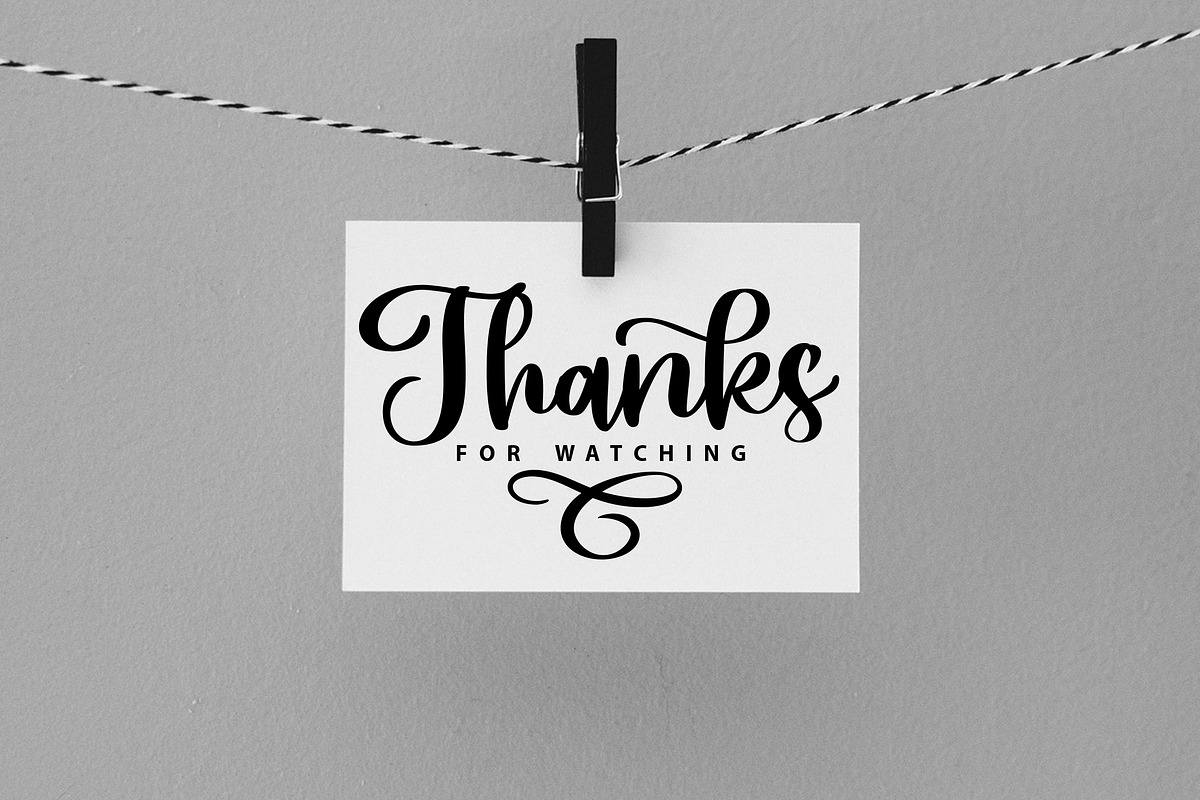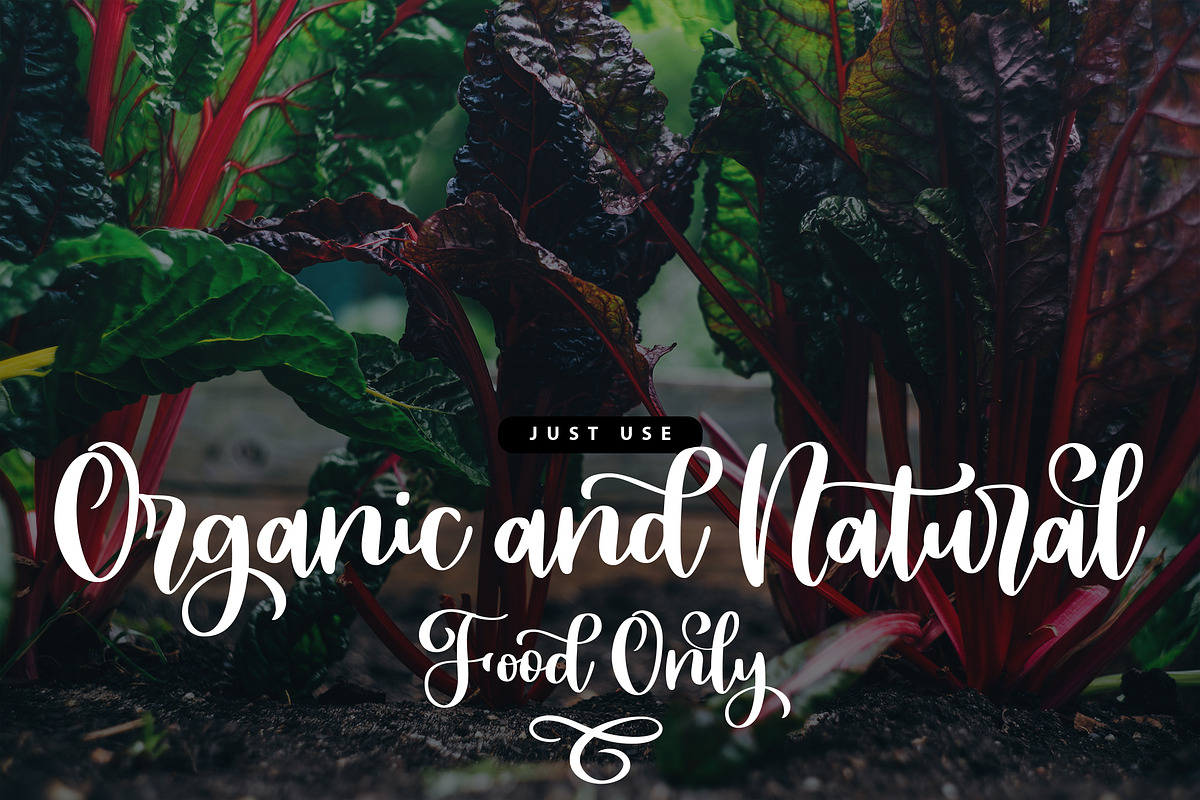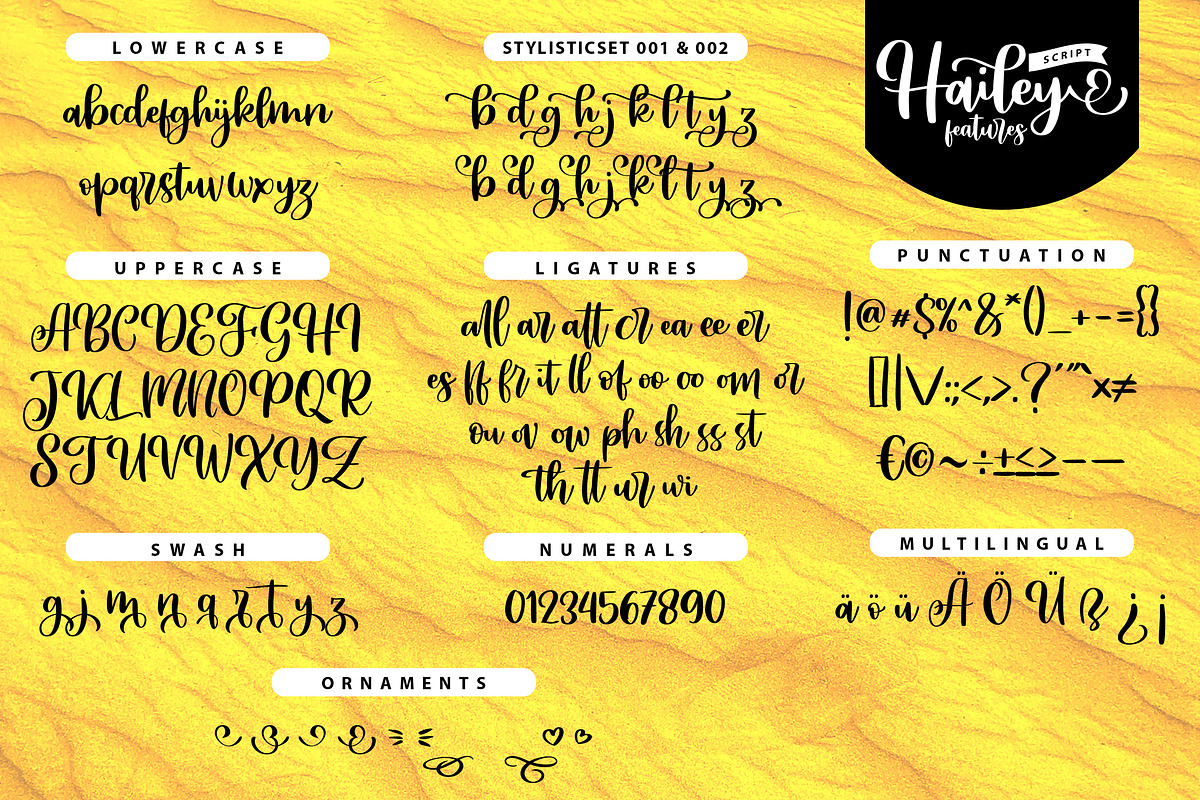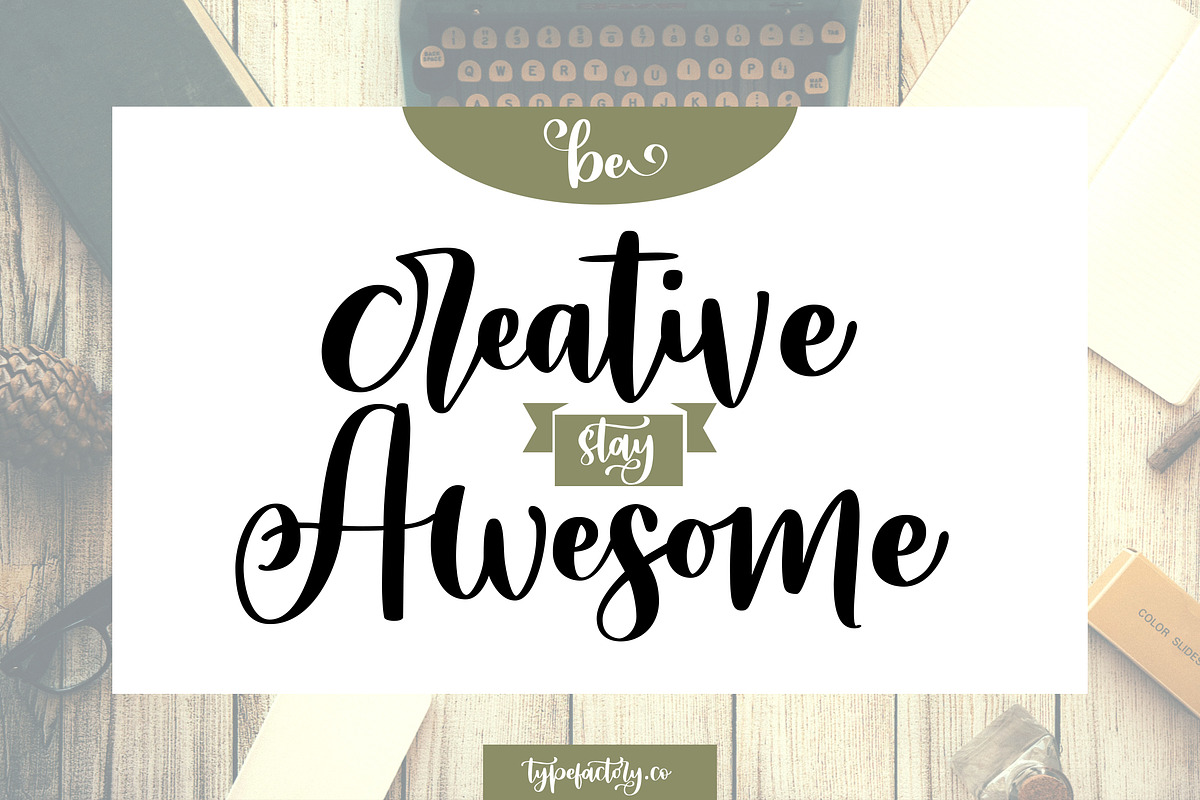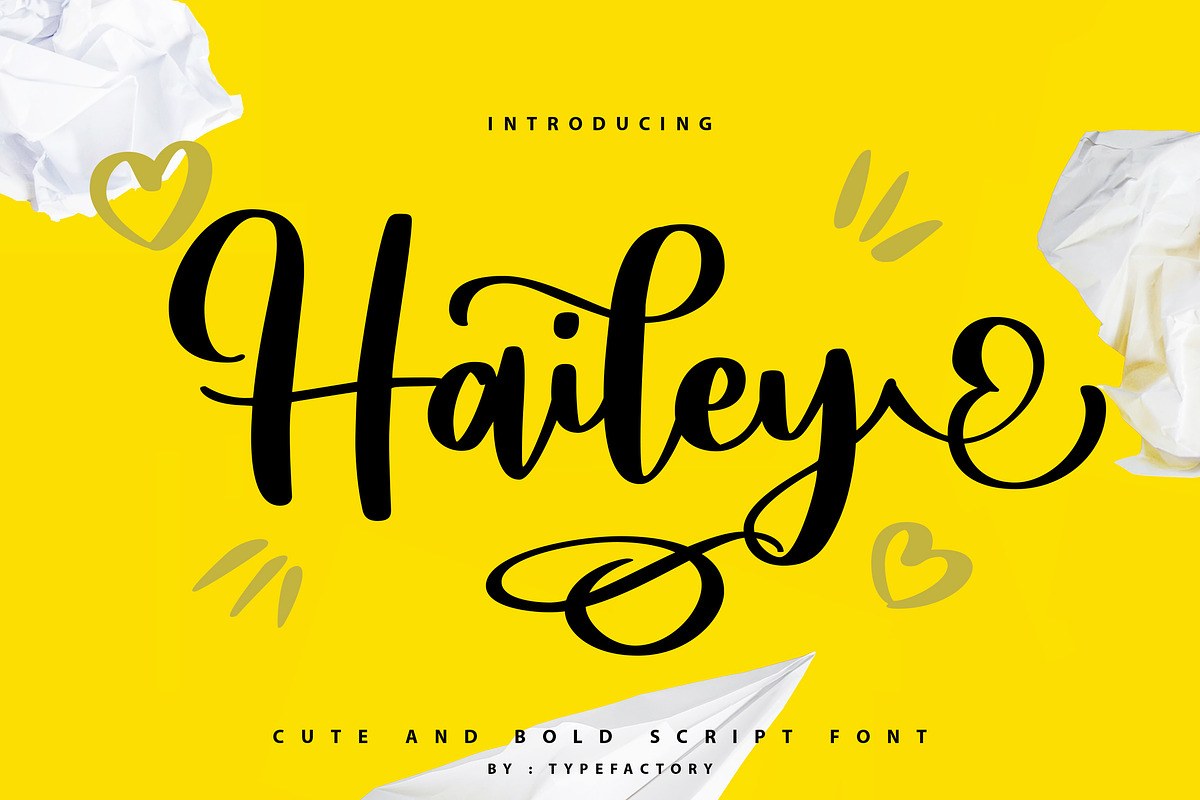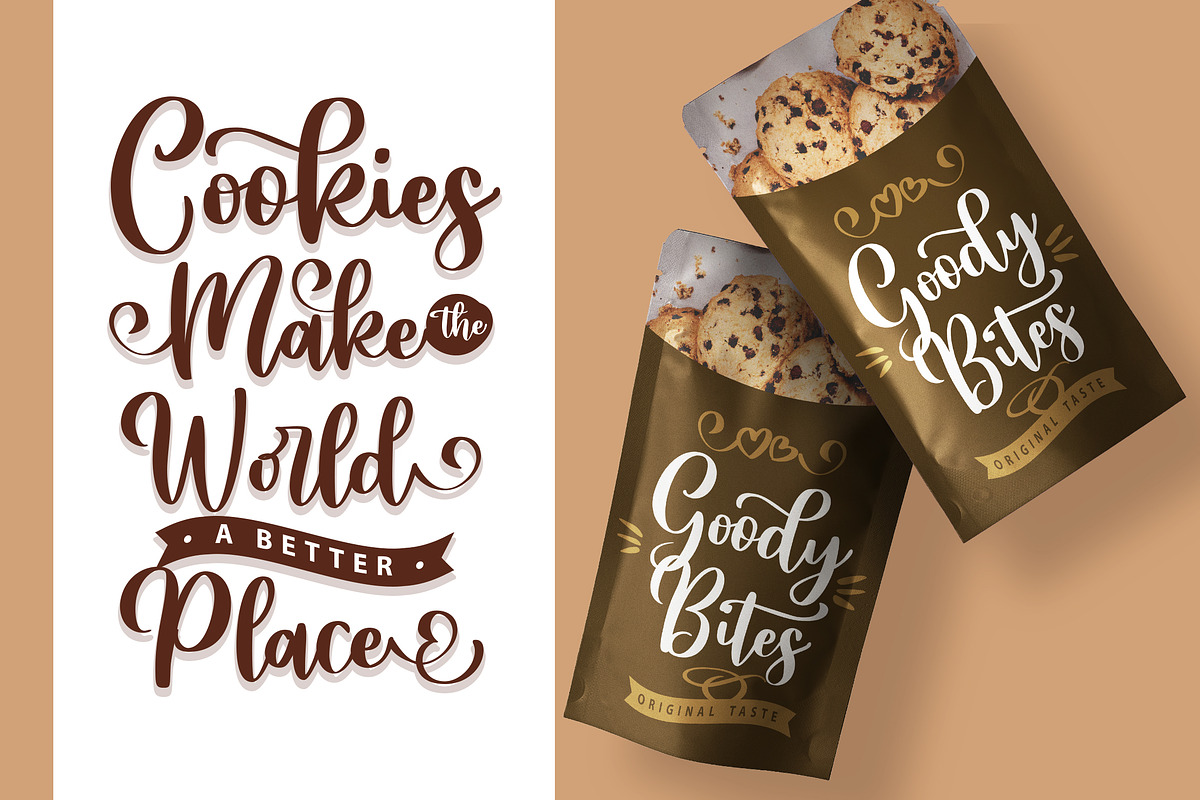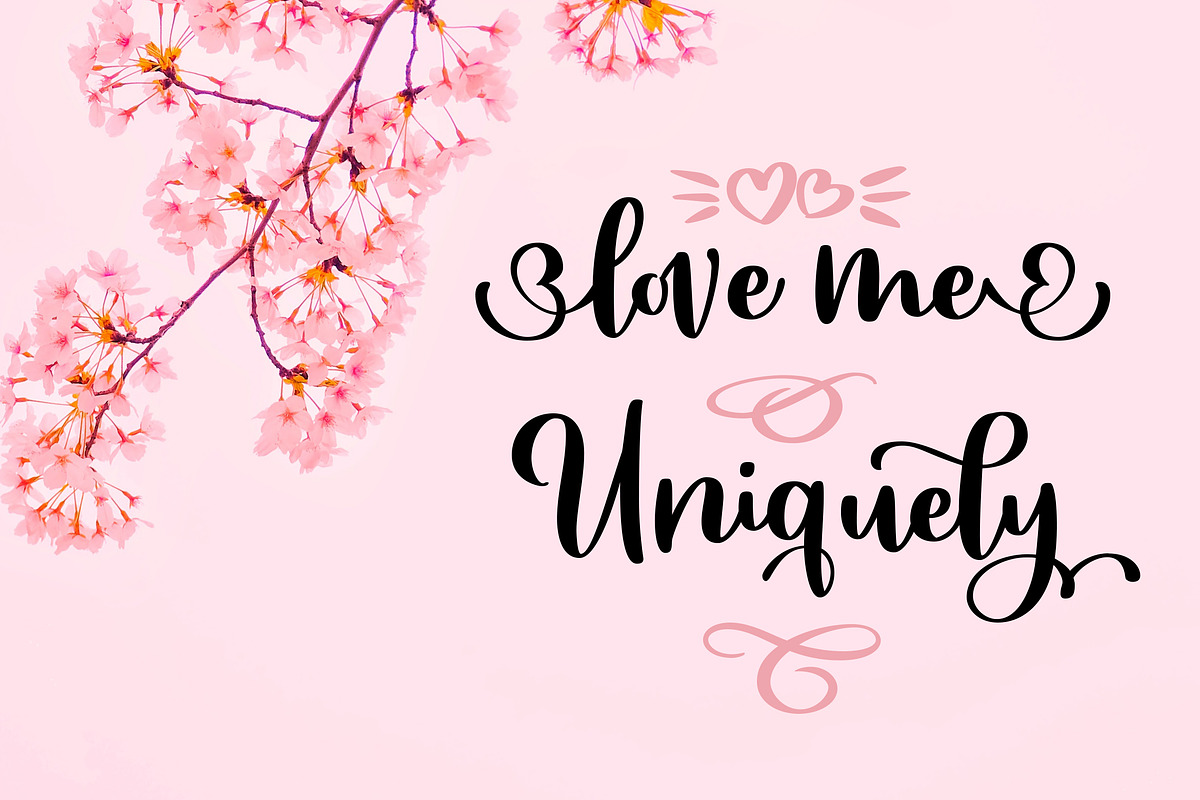
Hailey - Cute and Bold Script
Hailey is a Curly Script typeface, this font is very cute and lovely, you can use it for titles wedding, quotes, magazine, youtube cover, products mockup etc.